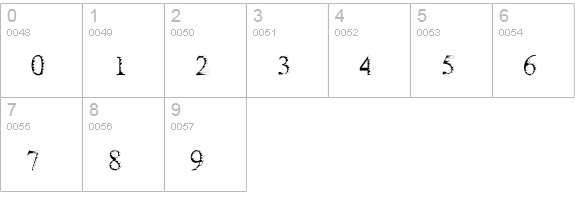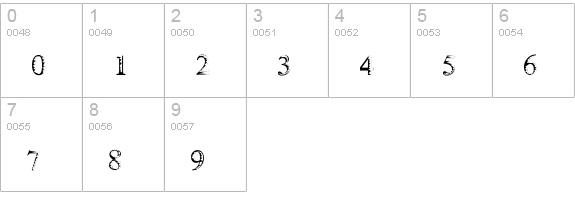
Amnon-Tiger Font Details
Amnon-Tiger font is a bold and striking typeface that exudes power and sophistication. With its sharp edges and unique design, this font is perfect for making a statement in your designs. The Amnon-Tiger font is sure to grab attention and leave a lasting impression. Best of all, this impressive font is available for free download at FontsMarket.com. Whether you're creating posters, logos, or other graphic designs, the Amnon-Tiger font will elevate your work to the next level. Don't miss out on the opportunity to add this stunning font to your collection today!